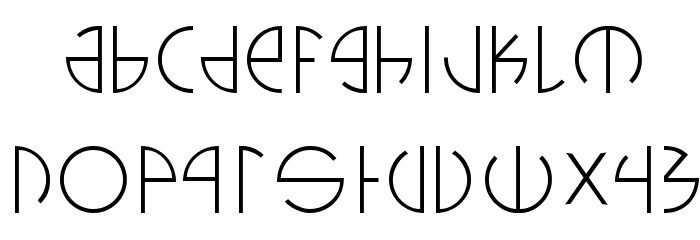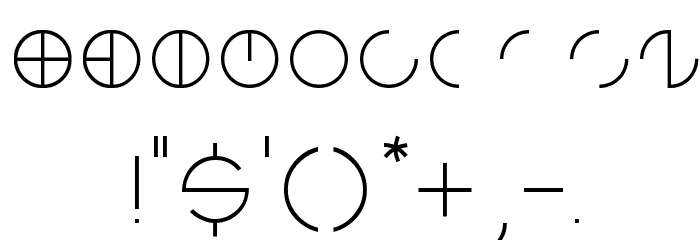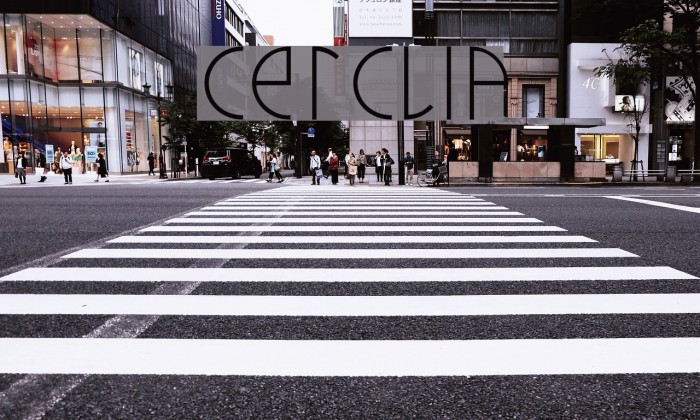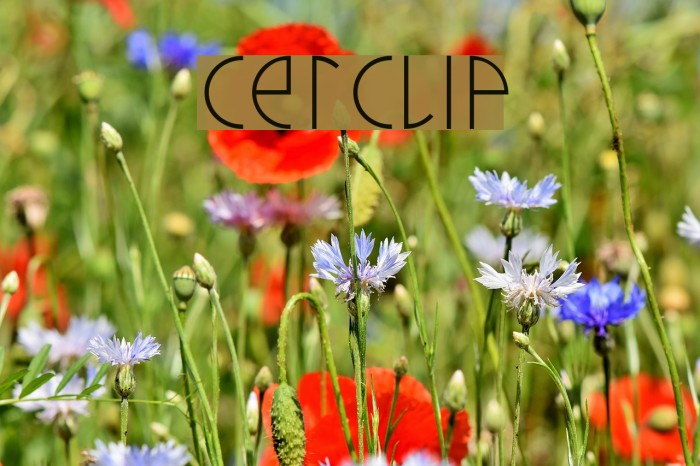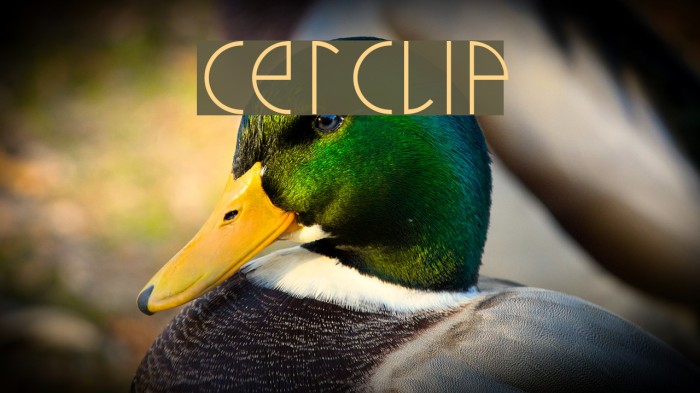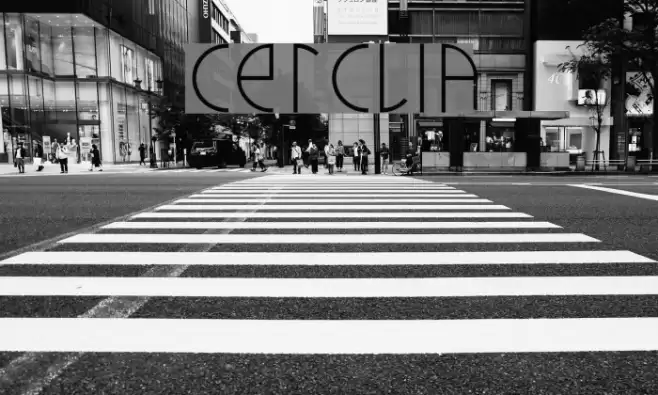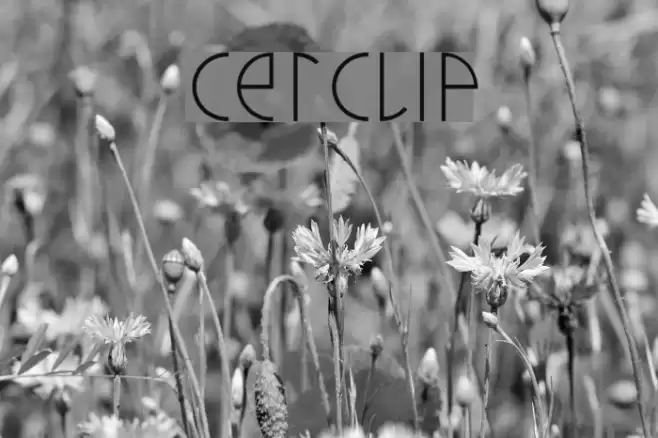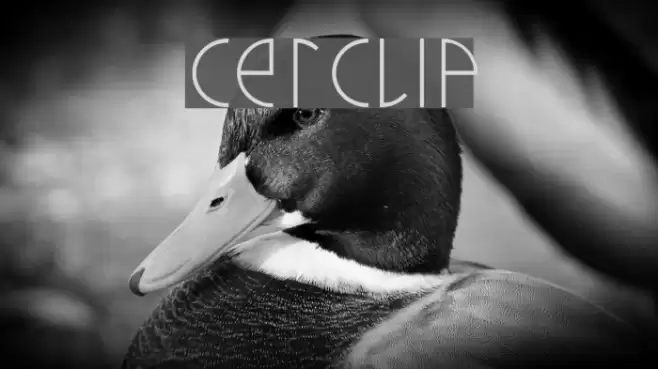
cerclip Font
This font features a unique geometric design with a modern twist. The characters are composed of clean, circular lines and sharp angles, creating a futuristic and stylish appearance. The uppercase and lowercase letters share a consistent design language, emphasizing symmetry and balance. The numerals and special characters maintain the same aesthetic, ensuring a cohesive look across all text. The font's minimalistic approach and distinctive shapes make it stand out, making it ideal for creative and innovative projects.
A modern, geometric font with circular lines and sharp angles.
- Proposed Projects: Ideal for branding, logos, posters, and futuristic design projects.